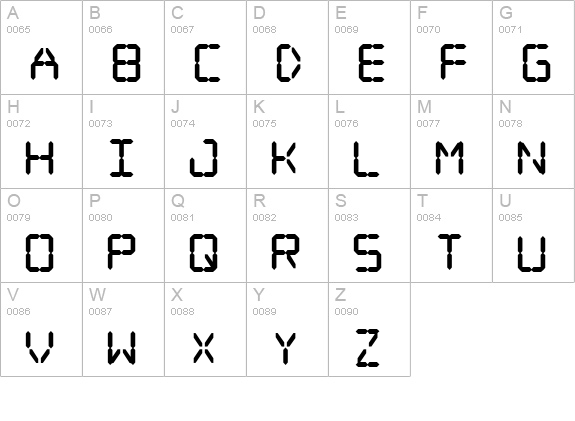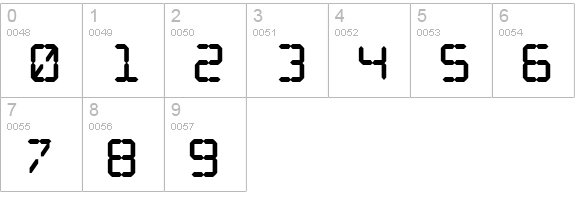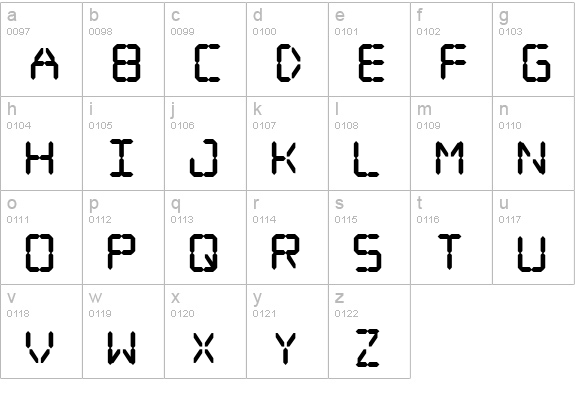
Digital Dream Fat font is a bold and eye-catching typeface that is perfect for making a statement in your designs. With its thick and chunky letters, this font exudes a sense of modernity and creativity. Whether you're designing posters, banners, or logos, Digital Dream Fat font will make your text stand out and capture attention. The best part is that Digital Dream Fat font is available for free download at FontsMarket.com. That's right, you can easily get your hands on this unique and stylish font without spending a dime. So why wait? Add Digital Dream Fat font to your collection today and take your designs to the next level!